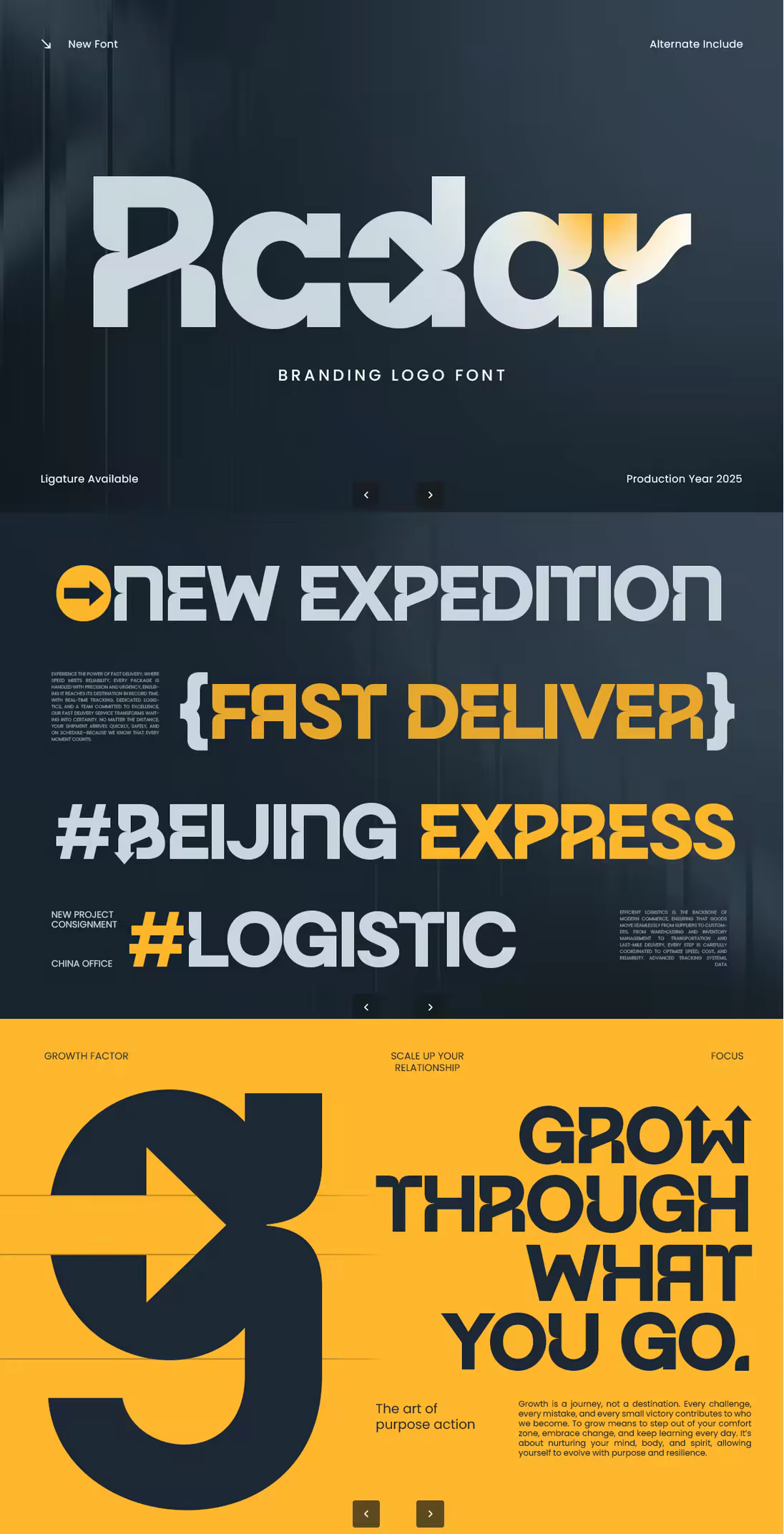
Radar is a branding logo font crafted with precision, balance, and a modern minimalist aesthetic. Its clean geometry and bold simplicity make it perfect for building strong, memorable brand identities that stand out across digital and print media.
With sharp lines and refined shapes, Radar delivers a confident and professional look suitable for tech companies, startups, fashion labels, creative studios, and corporate brands. Its distinctive structure makes every logo, headline, or packaging design feel purposeful, stylish, and visually striking.
Whether you're creating a modern identity system, website header, or editorial layout, Radar offers clarity, elegance, and strong versatility — all essential qualities for premium branding.
Radar – Branding Logo Font Features
Modern geometric design ideal for bold branding
Perfect for logos, packaging, editorial titles, and digital interfaces
Minimal, clean structure for professional visual identity
Strong readability across print and screen applications
Uppercase, lowercase, numerals, and punctuation included
OpenType features for enhanced typographic flexibility